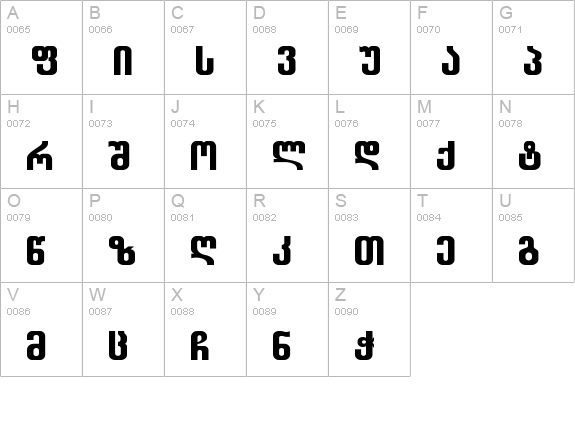
Balavery-ITV font is a stunning display typeface that combines modern aesthetics with a touch of elegance. Its sleek lines and unique letterforms make it perfect for a wide range of design projects, from branding to editorial design. The font exudes a sense of sophistication and professionalism, making it ideal for creating eye-catching headlines or attention-grabbing logos. What sets Balavery-ITV font apart is not only its visual appeal but also its versatility. Whether you're working on a print project or a digital design, this font will elevate your work and give it a polished finish. With its clean and crisp letterforms, Balavery-ITV font is sure to make a statement and leave a lasting impression on your audience. The best part? Balavery-ITV font is completely free to download at FontsMarket.com. This means you can add this stylish typeface to your font collection without breaking the bank. So why wait? Download Balavery-ITV font today and take your designs to the next level with this elegant and sophisticated typeface.